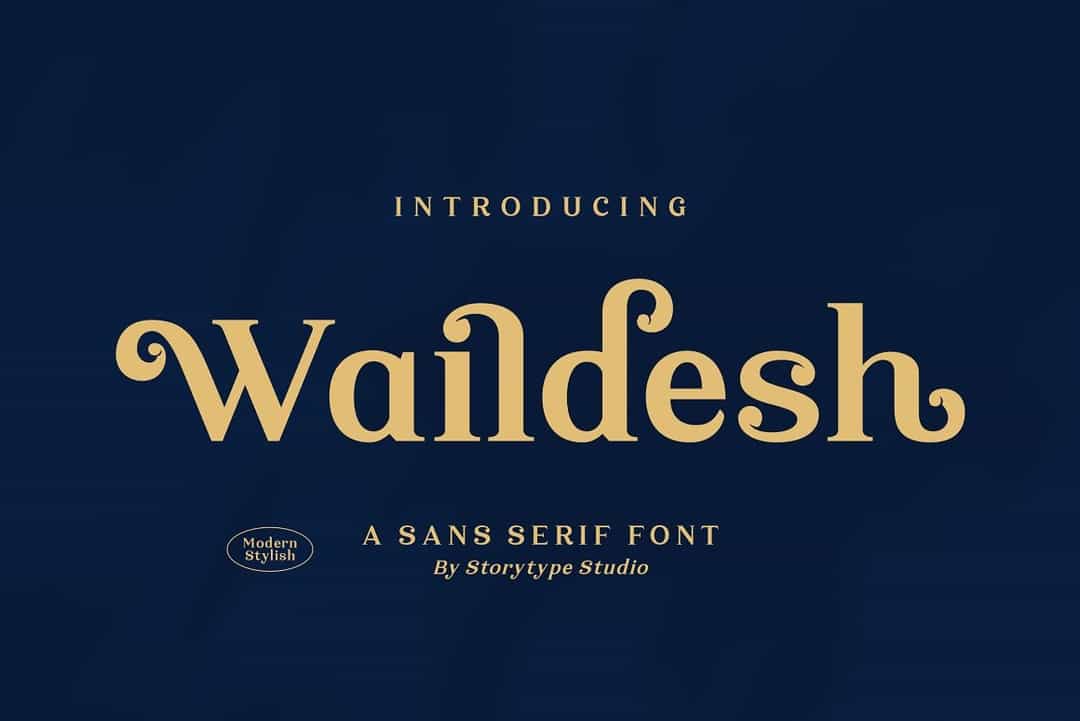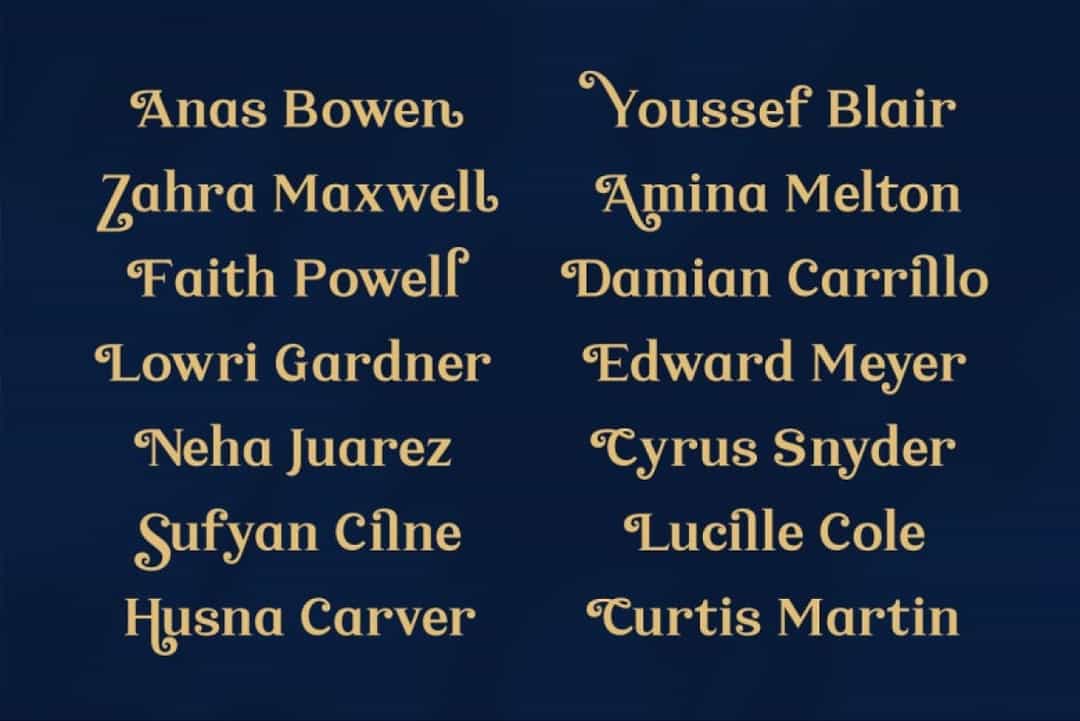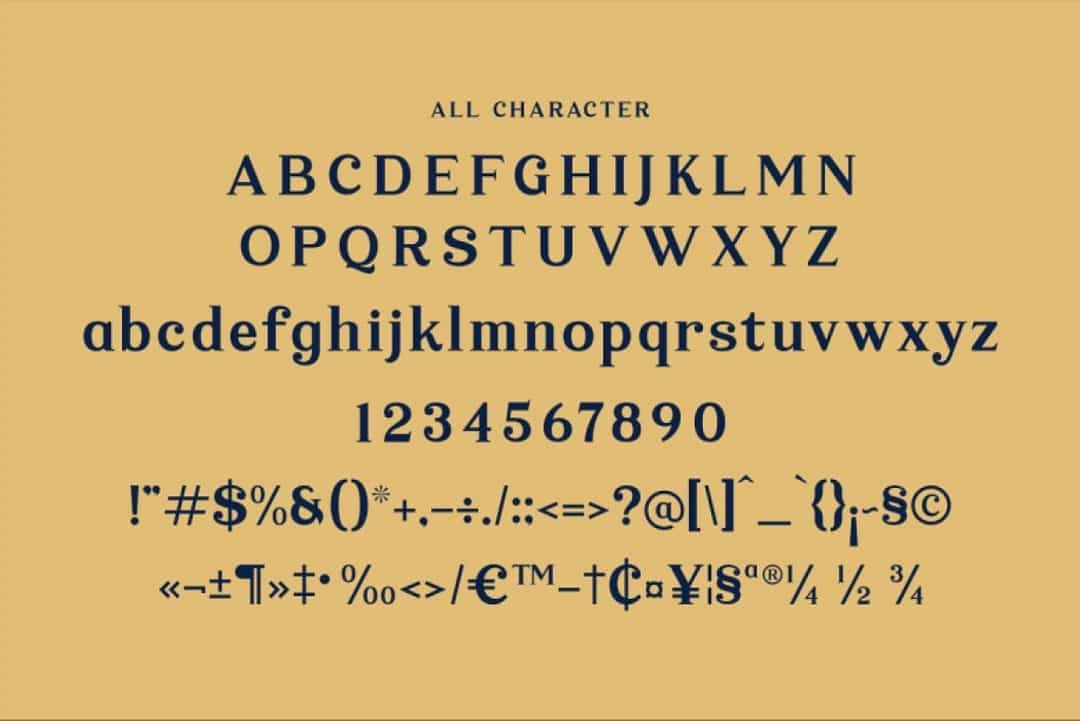
Waildesh is an elegant yet contemporary serif font with its distinctive style and look, perfect for sophisticated and luxurious logos, book or film styles, fashion label clothing designs, magazines letters quotes etc.